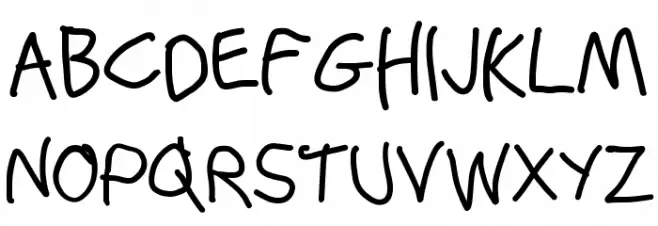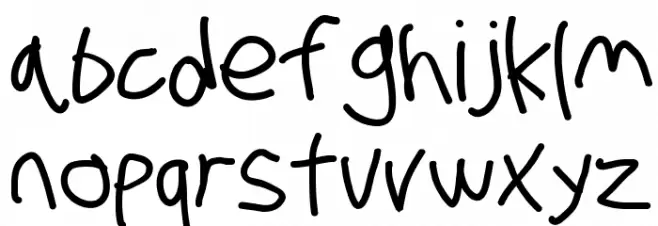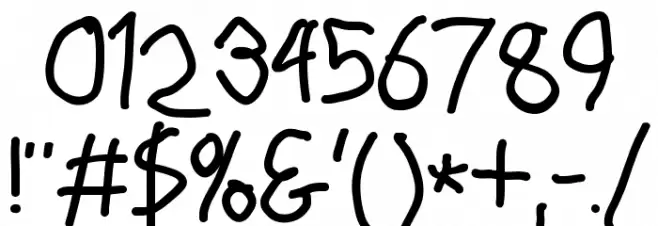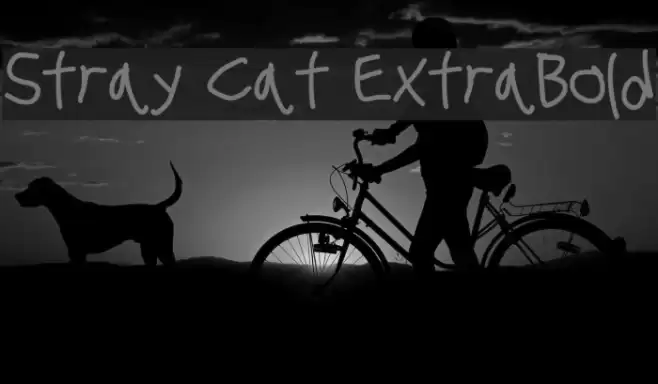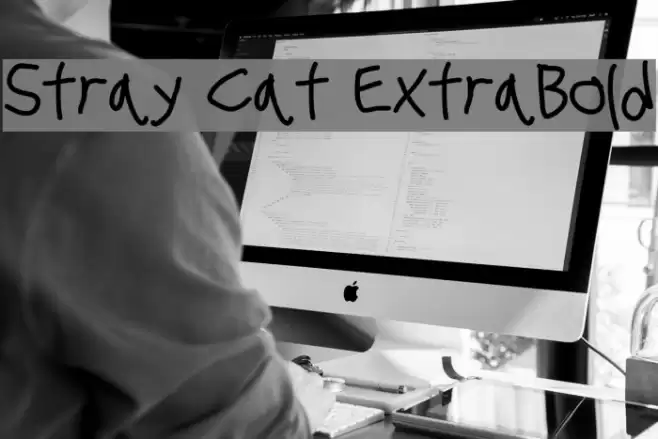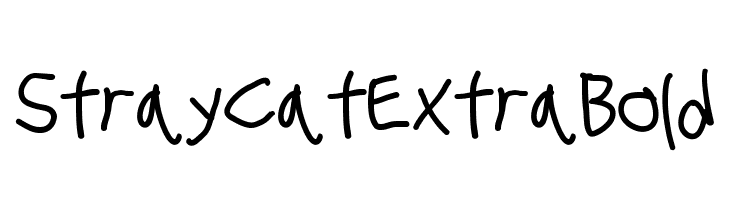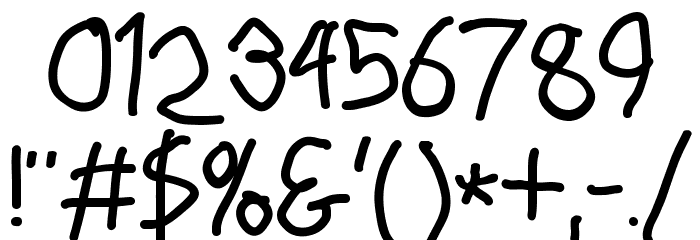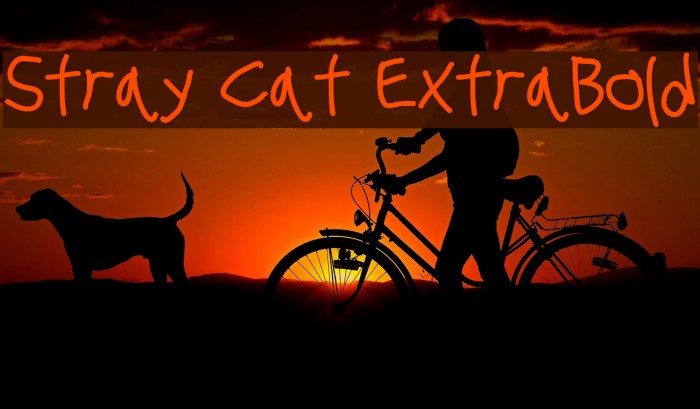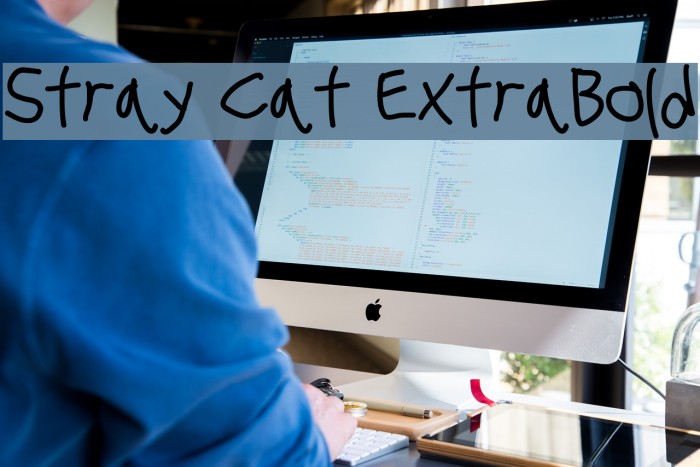
Stray Cat ExtraBold
This font exudes a playful and casual handwritten style, characterized by its bold and slightly irregular strokes. The letters have a spontaneous and lively appearance, with a natural flow that mimics the look of handwriting. The uppercase and lowercase letters maintain a consistent style, with rounded edges and a slightly tilted orientation, adding to the informal and friendly vibe. The numbers and special characters follow the same aesthetic, ensuring a cohesive look across all glyphs. This font is perfect for projects that require a personal touch or a creative flair.
A bold, playful handwritten font with a casual and lively style.
- Proposed Projects: Ideal for greeting cards, children's books, casual branding, and creative social media graphics.
- Overall Style: Casual, Playful
- Use Case: Headlines, Informal text, Creative projects